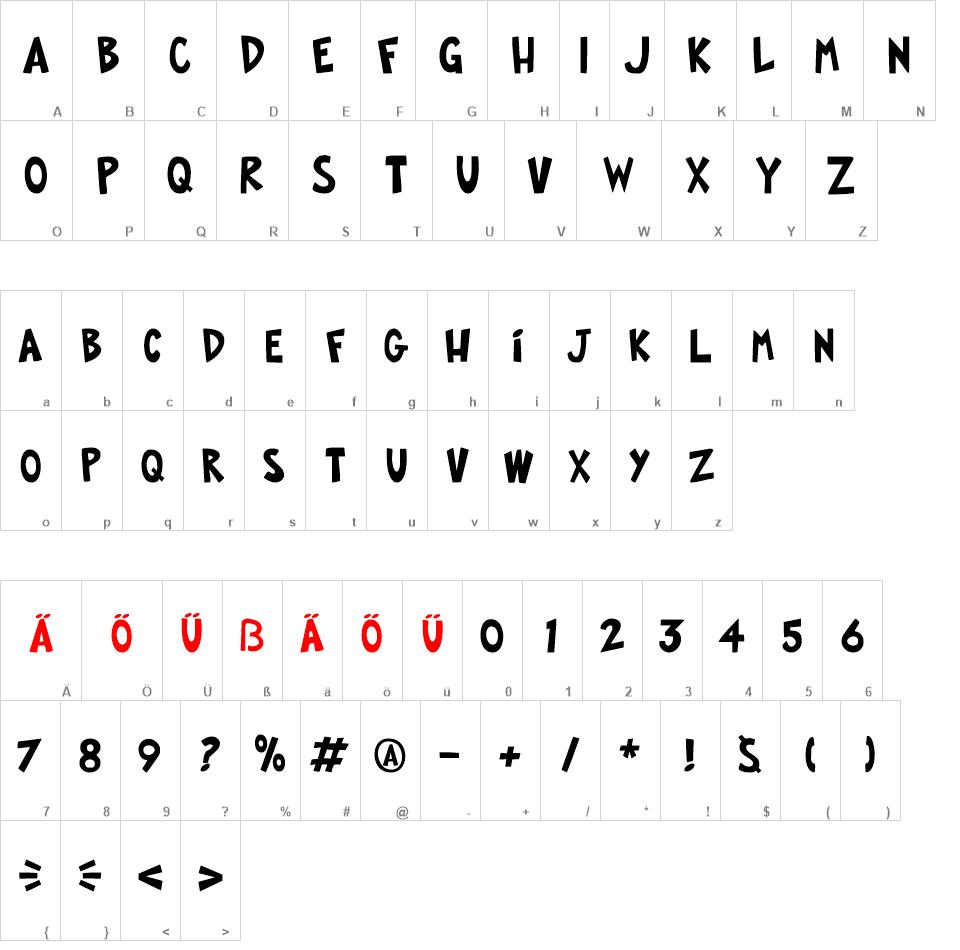
FOP Title Style
FOP Title Style font
FOP Title Style
A font made based on a font used on the latest season title cards of the cartoon Fairly Oddparents.
A work by a fan for all FOP fans!